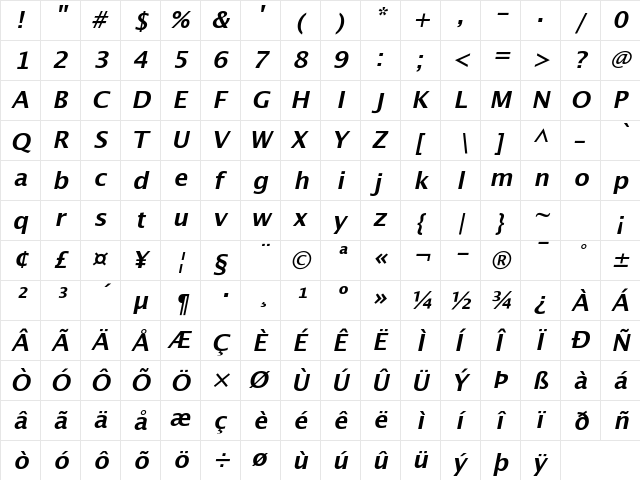
Lucida Sans Demibold Oblique
Design Context for Lucida Sans Typeface
Lucida Sans is a composed and adaptable typeface that performs quietly and consistently across a wide range of design contexts. The dynamic lean of this cut emphasises speed and emphasis in any layout. The heavy weight commands attention and anchors typographic hierarchies.
Pro Tip: Use Lucida Sans for emphasis, pull quotes, and subheadings where its slanted energy can add rhythm to the layout.